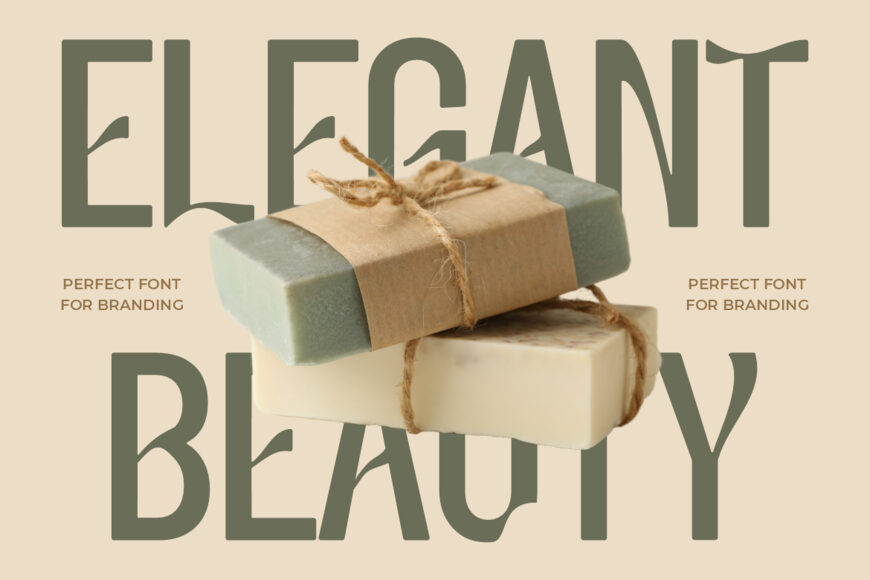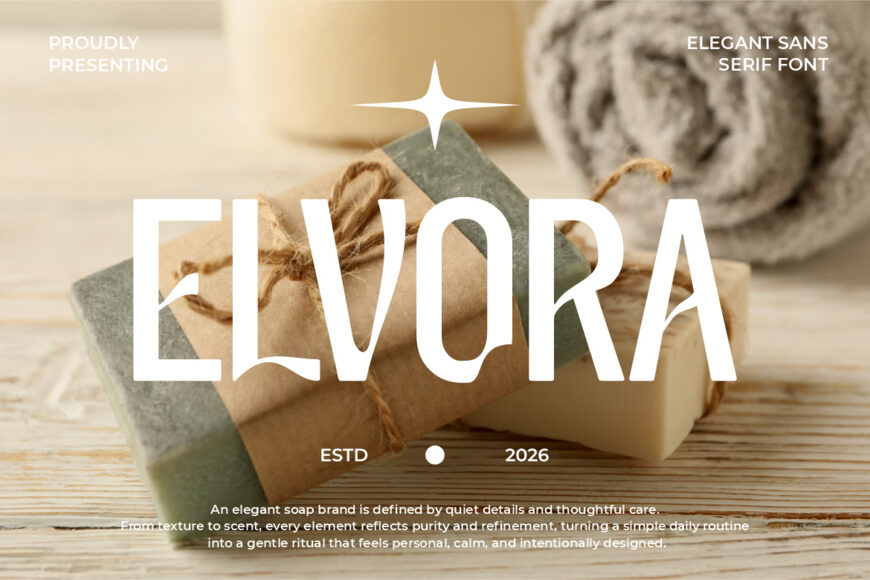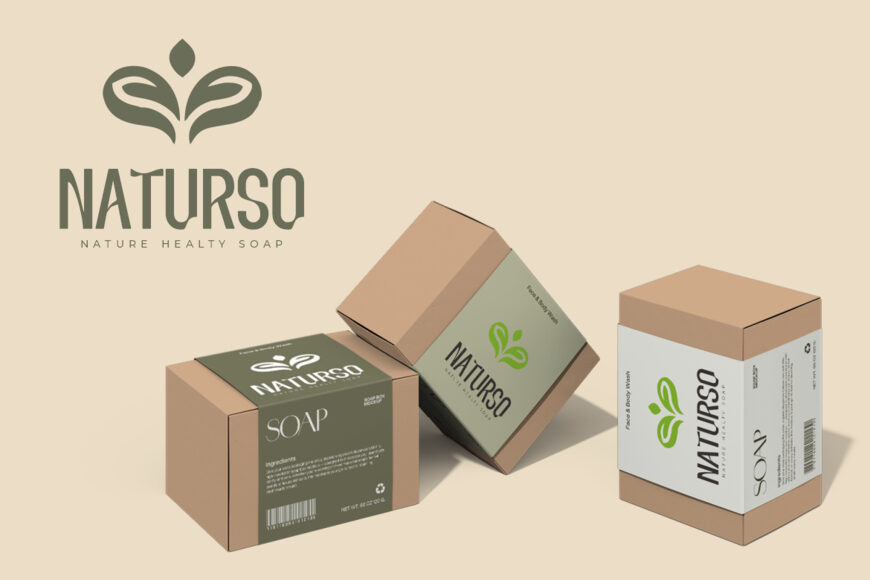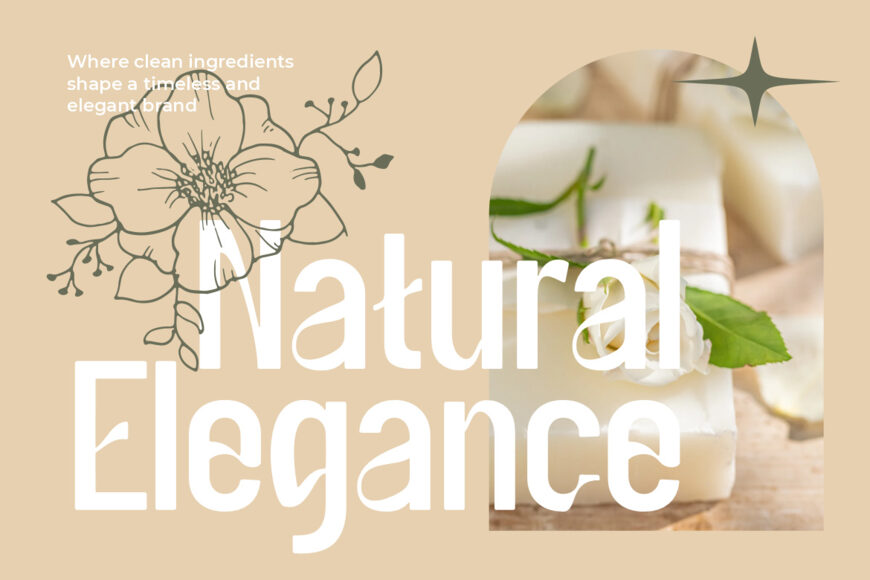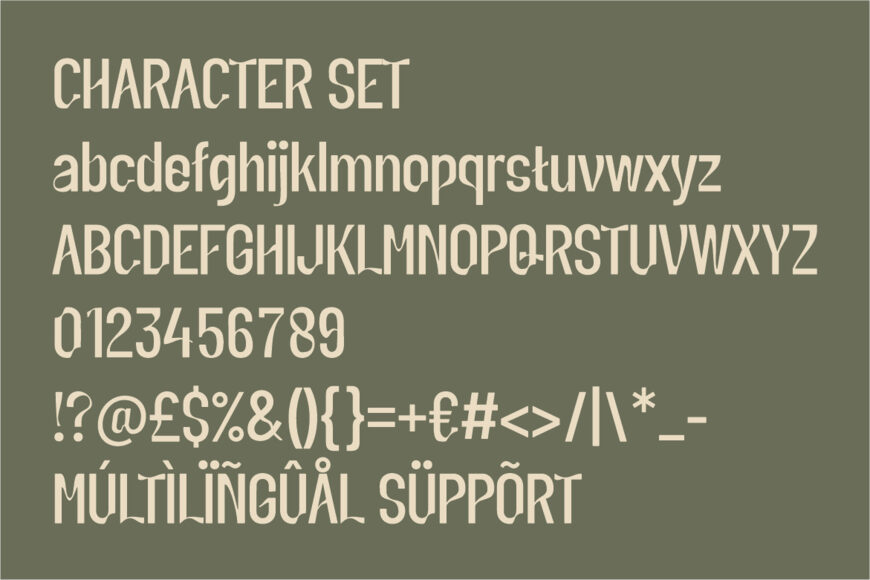
Elvora is an elegant sans-serif font shaped by clean geometry and softly balanced proportions. Its tall, well-structured letterforms create a calm, confident reading experience, while consistent strokes provide a smooth, controlled look. Subtle curves add warmth, and crisp lines maintain a contemporary feel without becoming overly rigid.
Thoughtful spacing gives words room to breathe, making the typeface effective for logos, headlines, and other display applications. Clear at different sizes, Elvora Modern combines approachable character with refined polish, offering a dependable choice for long-term branding and visual identity projects.